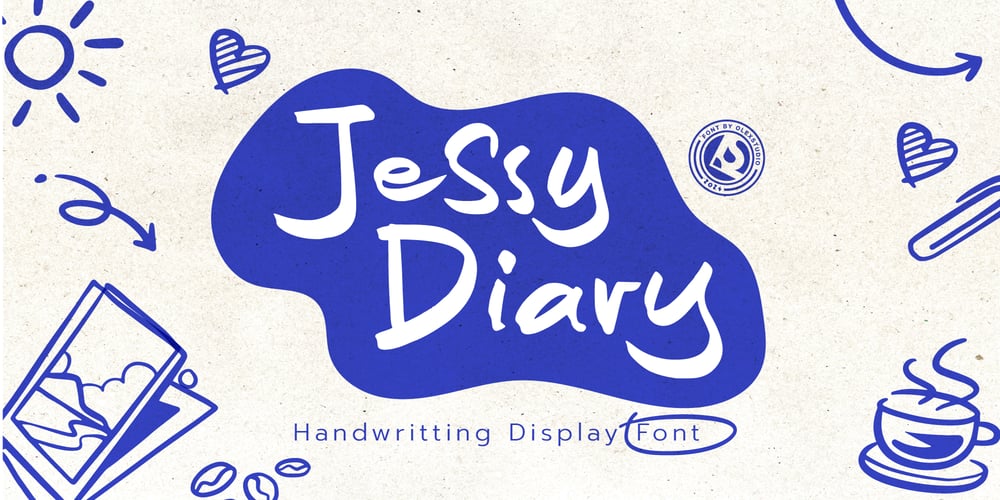
Jessy Diary
Jessy Diary font
Jessy Diary Font Family was designed by Firman Syah and published by Olexstudio. Jessy Diary contains 1 styles and family package options. Jessy Diary – Handwritting Display Font will look gorgeous on all your designs, poster design, comic book, kids book, book design, branding materials, logo’s, menu and all project design other.WHAT’S INCLUDEDJessy Diary – Handwritting Display Font contains standard characters, Uppercase, Lowercase Alternates, Ligatures, numbers, punctuation and international glyphsThanks 🙂 Happy Designed!